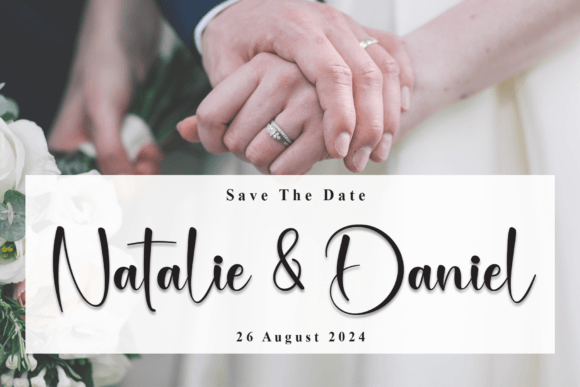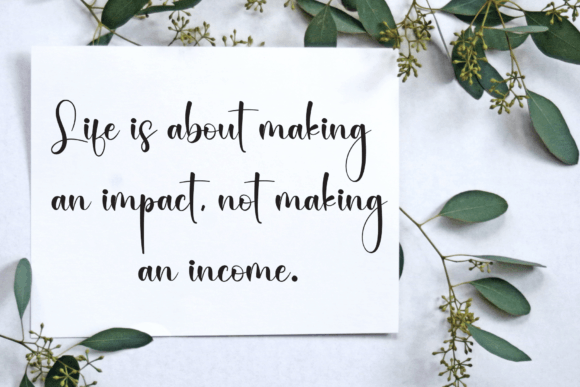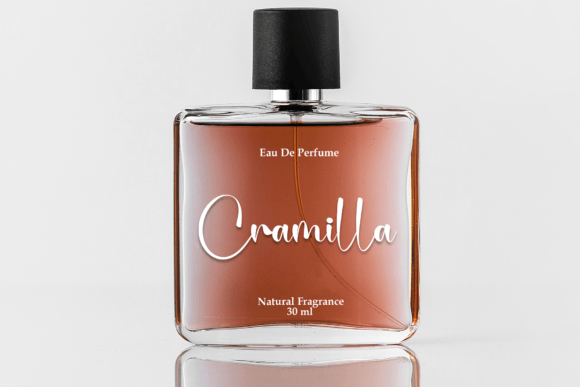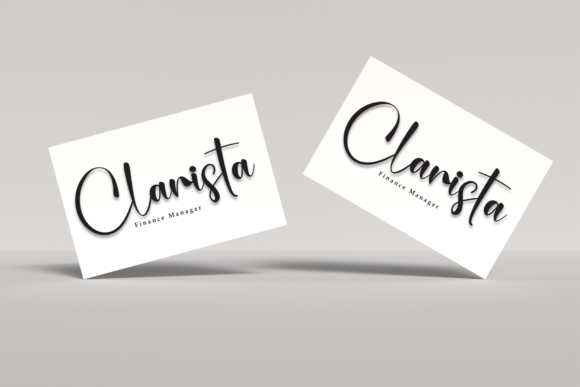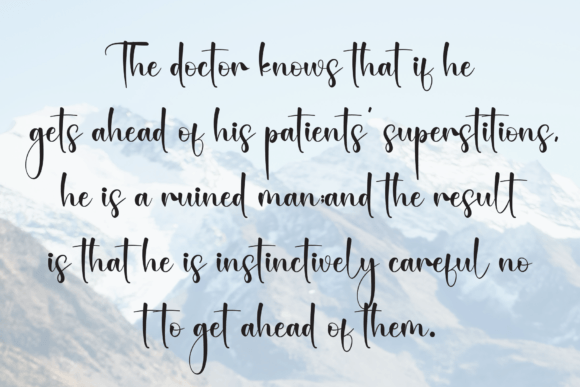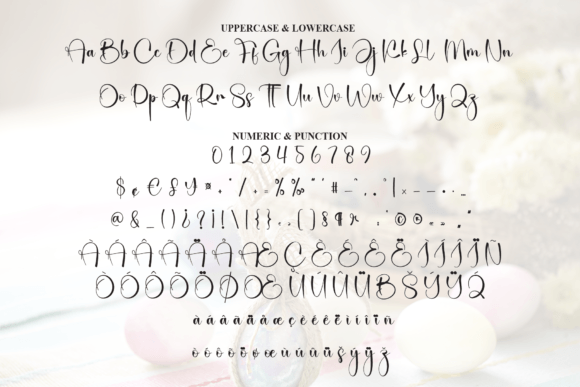
The Easter Font: A Timeless Elegance for Your Designs
Have you ever been in the middle of a design project, and suddenly, you’re stuck on finding the perfect font? I recall a recent experience where I was working on a client’s Easter-themed invitation, and I just couldn’t find a font that captured the essence of the holiday. That’s when I stumbled upon the Easter Font, a stylish handwritten script font that instantly elevated my design.
A Personal Review: What I Love and What to Consider
- ✨ Elegant and charming: The Easter Font exudes sophistication with its flowing, graceful curves.
- ✅ Versatile: Perfect for invitations, logos, branding, and any design project that requires a personal touch.
- 💫 Delicate strokes: Bring warmth and creativity to your projects with the font’s subtle yet distinctive strokes.
A Few Quirks to Keep in Mind 🤔
- ⚠️ Limited use in body text: Due to its elegant nature, the Easter Font might not be the best choice for lengthy paragraphs.
- ⚠️ May require adjustment: Some letters may need manual kerning for optimal spacing.
The Story Behind Easter Font: A Designer’s Inspiration
The Easter Font was designed with the intention of capturing the elegance and charm of handwritten scripts. Inspired by traditional calligraphy and modern typography, this font aims to bring a personal and sophisticated touch to any design. Whether you’re a designer, crafter, or creative hobbyist, the Easter Font is a versatile addition to your typography arsenal.
Q: What type of projects is the Easter Font best suited for?
A: The Easter Font is perfect for invitations, logos, branding, and any design project that requires an elegant and personal touch.
Q: Does the Easter Font include OpenType features?
A: Yes, the Easter Font includes OpenType features such as ligatures and stylistic alternates, which can be accessed in compatible design software.
Q: Is the Easter Font suitable for body text?
A: While the Easter Font is elegant and readable, it’s primarily designed for headings and short paragraphs. For longer body text, a more straightforward font might be more suitable.